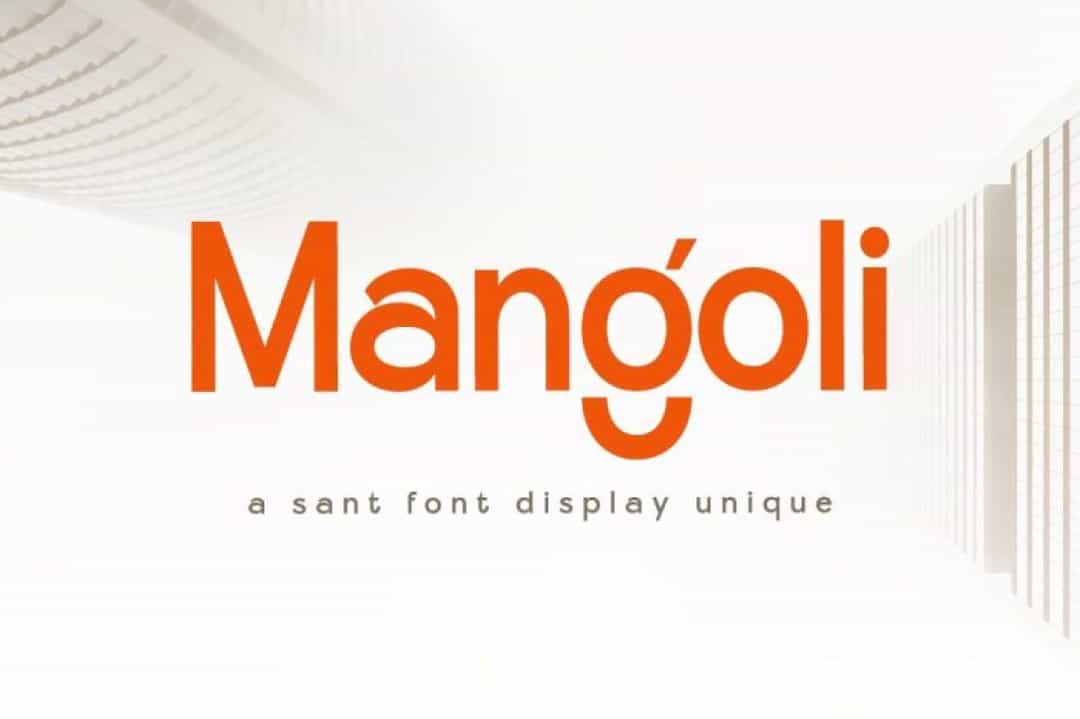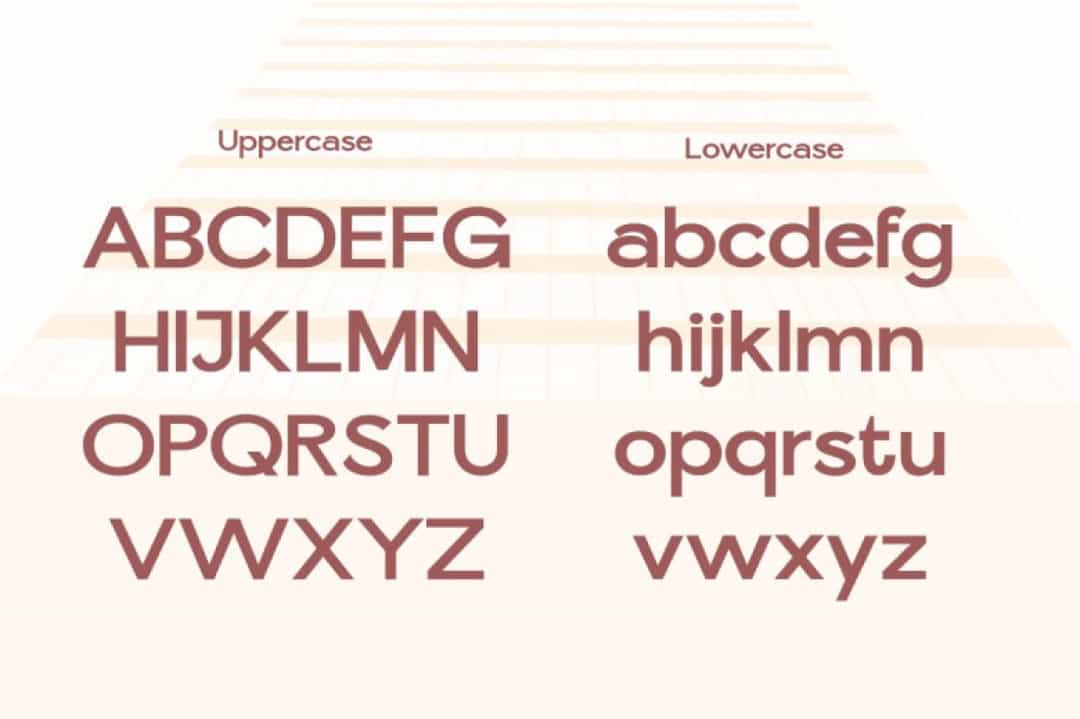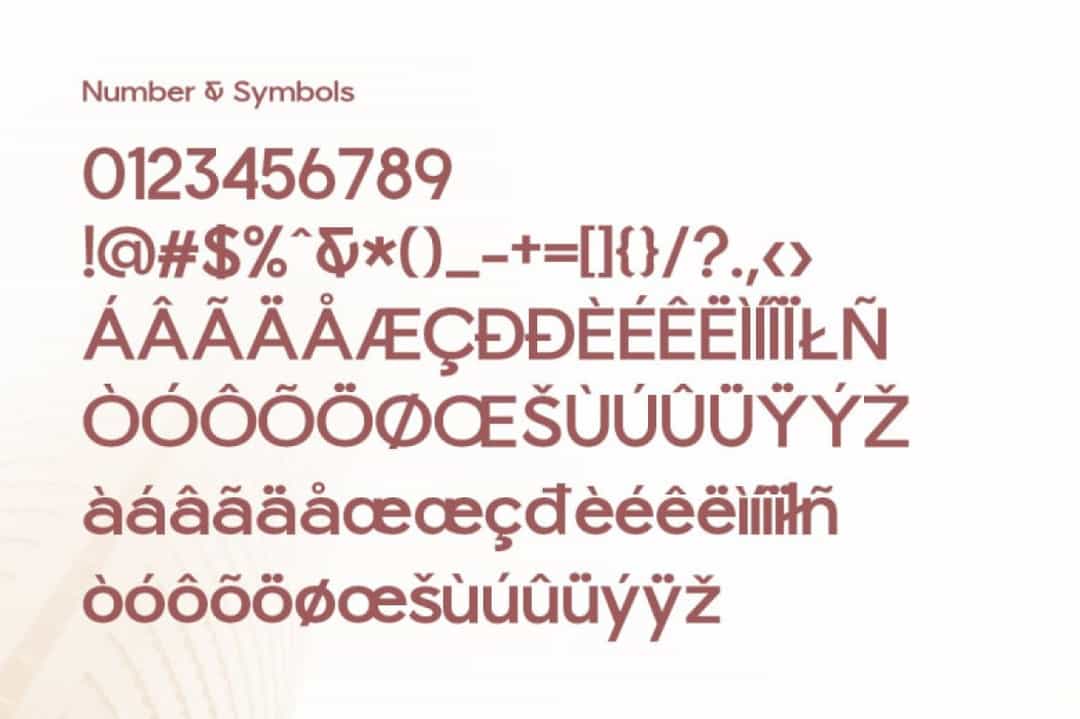
Discover Mangoli Font, part of the Sans Serif collection—a versatile and unique font perfect for adding a personal touch to your projects. Download it for free and enjoy crafting designs with style, from invitations to social media posts. This font is available exclusively for personal use, giving you the freedom to create without limits. Unlock your creativity with Mangoli Font today!
Please enjoy a beautiful font called Mangoli Sans for any project requiring it. With its variety of styles, fasteners and OpenType features such as styles sets and character variants as well as beginning/ending forms for multiple languages support, this font makes an excellent addition for logos that promote branding as well as posters designs with invitations for parties, events, invitations, t-shirt design for children, editorial layouts etc.